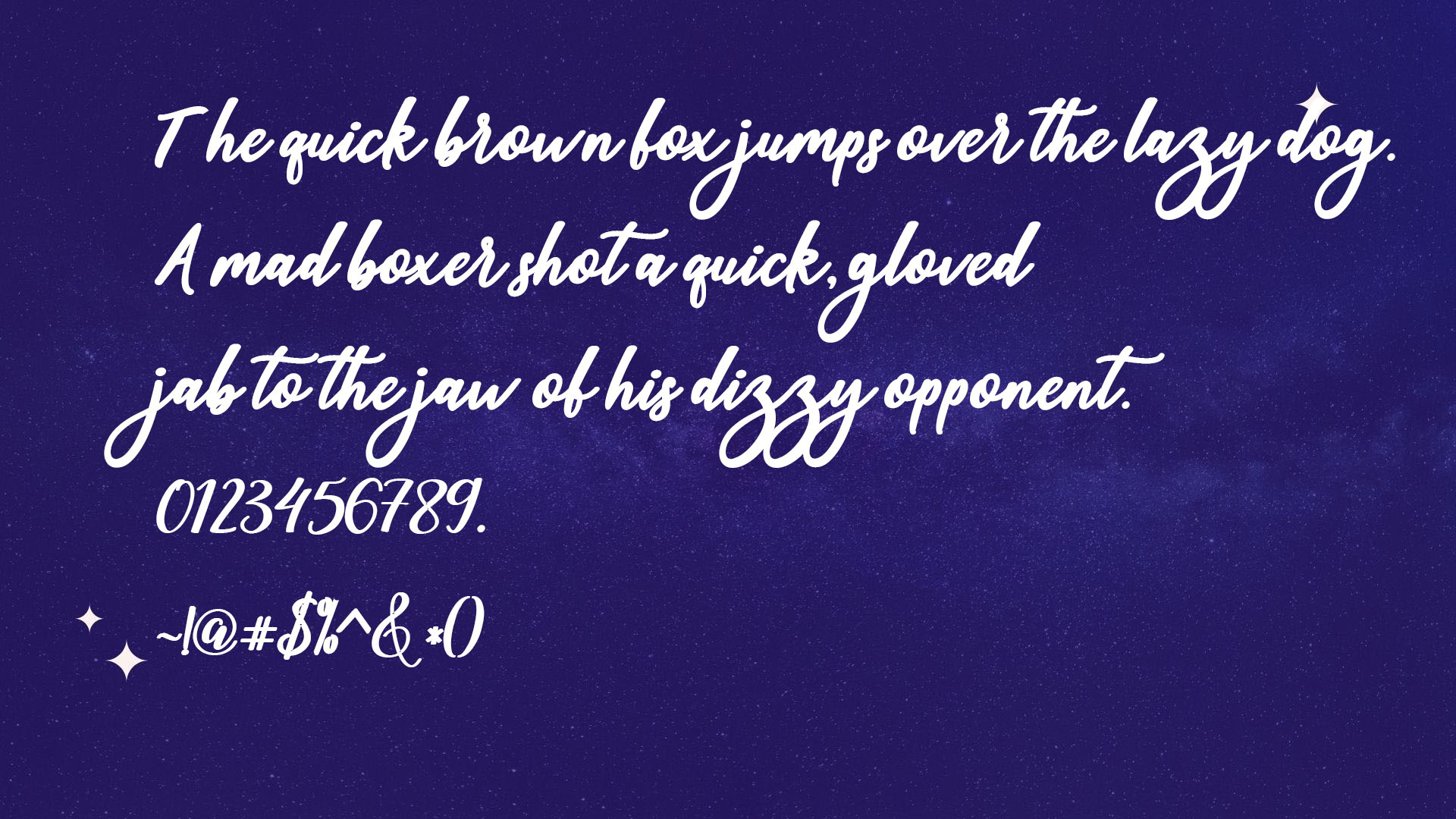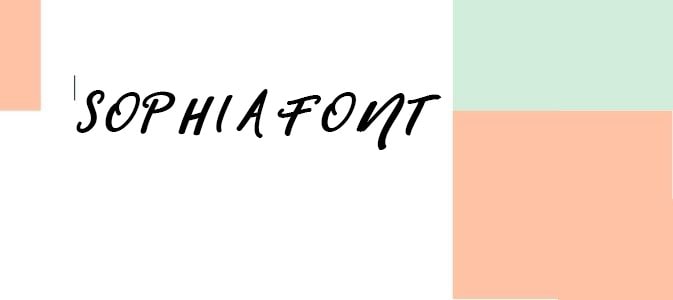
Sophia Font is a very creative typeface and also many designers and companies prefer this font. This font has a very very prominent and detailed texture visual. This creative Font was manufactured by a very notable font maker that already created many creative fonts or designs Emily Spadoni. This Formal style font falls into the category of Handwritten Family.
This is a very standard typeface that has very slim strokes and lightweight characters that gives a very exquisite look to your logos.
Who Used Sophia Font?
This stunning style font is largely useable in numerous designs and projects like Text design, Typography on mugs and other things, Art& Illustrations, Amazing storybooks, creative design or covers, display designs, logo design, and many others.
This font is also very beneficial for printing projects like invitation cards, business cards, movies Banners & posters, and other printed materials.
Sophia Font Family Appearance
| Name | Sophia Font |
| Designer | Emily Spadoni |
| Style | Handwritten |
What is Sophia font?
This is a very creative and unique texture typeface that falls into the category of handwritten family.
Who owns the Sophia Font?
This font is very useful for any type of design especially logo design. The owner of this stunning font is “Emily Spadoni”.